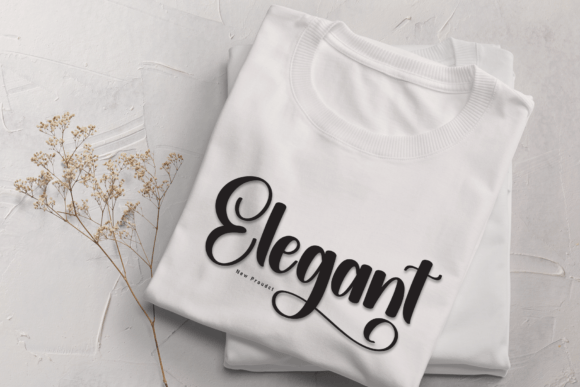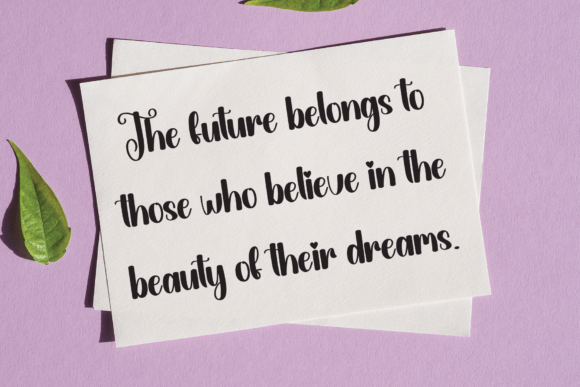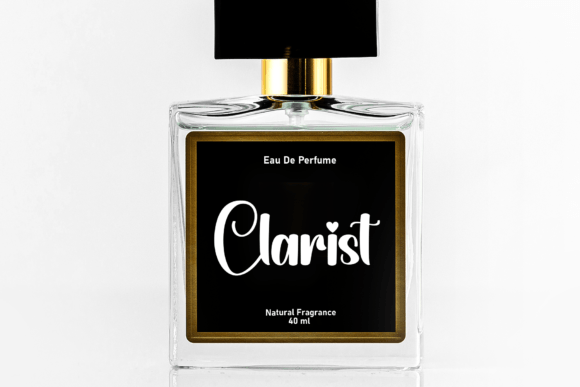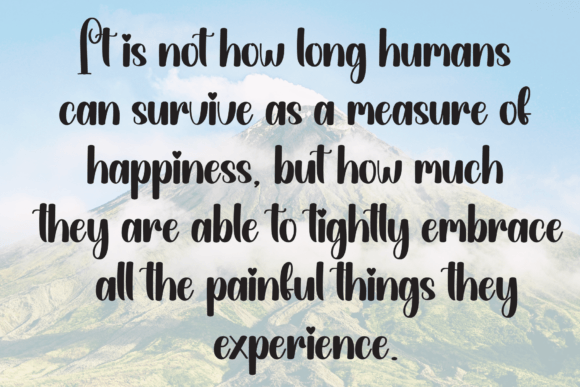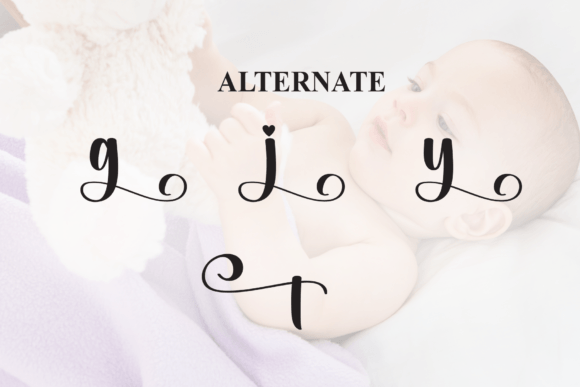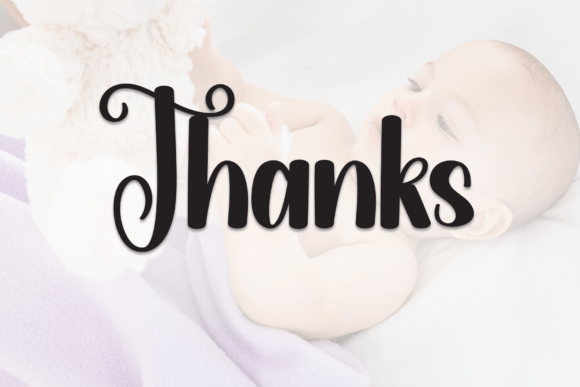
Babycute Font: The Ultimate Choice for Designers and Crafters
In the world of typography, fonts play a crucial role in making or breaking a design. A beautiful font can elevate your design, making it more visually appealing and engaging. If you’re a designer or crafter looking for a font that can add a touch of elegance and sophistication to your work, look no further than Babycute Font. In this article, we’ll explore the features and benefits of Babycute Font, and why it’s the perfect choice for creating stunning logos, branding, and quotes.
What is Babycute Font?
Babycute Font is a lovely and timeless handwritten font that has captured the hearts of designers and crafters worldwide. Its unique and beautiful touch makes it an excellent choice for creating eye-catching logos, branding, and quotes. Every letter in the Babycute Font has a distinct character, which adds a personal touch to your design. Whether you’re creating a logo, business card, or social media post, Babycute Font is sure to make your design come alive!
Features of Babycute Font
So, what makes Babycute Font so special? Here are some of its key features:
- Handwritten style: Babycute Font has a beautiful, handwritten style that adds a personal touch to your design.
- Unique letters: Every letter in the Babycute Font has a unique and beautiful touch, making your design stand out from the crowd.
- Timeless design: The Babycute Font has a timeless design that won’t go out of style anytime soon.
- Elegant and sophisticated: The font has an elegant and sophisticated feel, making it perfect for creating logos, branding, and quotes.
Benefits of Using Babycute Font
Now that we’ve explored the features of Babycute Font, let’s dive into its benefits. Here are some reasons why you should consider using Babycute Font in your designs:
- Easy to read: The Babycute Font is easy to read, making it perfect for creating quotes, posters, and social media posts.
- Versatile: The font is versatile and can be used in a variety of design projects, from logos and branding to invitations and crafts.
- Customizable: The Babycute Font can be customized to fit your design needs, making it easy to pair with other fonts and design elements.
- High-quality: The font is of high quality, ensuring that your design looks professional and polished.
How to Use Babycute Font in Your Designs
Using Babycute Font in your designs is easy. Here are some tips to get you started:
- Pair with other fonts: Pair Babycute Font with other fonts to create a unique and visually appealing design.
- Experiment with colors: Experiment with different colors to find the perfect combination that complements your design.
- Use in quotes and posters: Use Babycute Font in quotes and posters to add a touch of elegance and sophistication.
- Try it in branding: Try using Babycute Font in your branding materials, such as business cards and letterheads, to create a consistent and professional look.
In conclusion, Babycute Font is a beautiful and timeless handwritten font that is perfect for designers and crafters. Its unique and beautiful touch makes it an excellent choice for creating eye-catching logos, branding, and quotes. With its elegant and sophisticated feel, Babycute Font is sure to elevate your design and make it stand out from the crowd. So, if you’re looking for a font that can add a touch of elegance and sophistication to your design, look no further than Babycute Font.